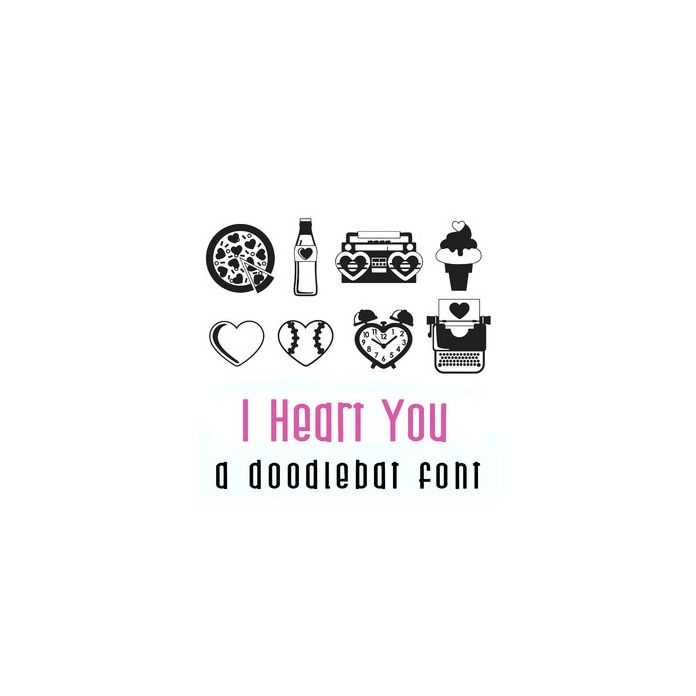
I Heart You Doodlebat Font
This fun doodlebat font features 72 heart images and puns Perfect for cards, crafts, gifts, decor, scrapbook pages, planner stickers, and more!